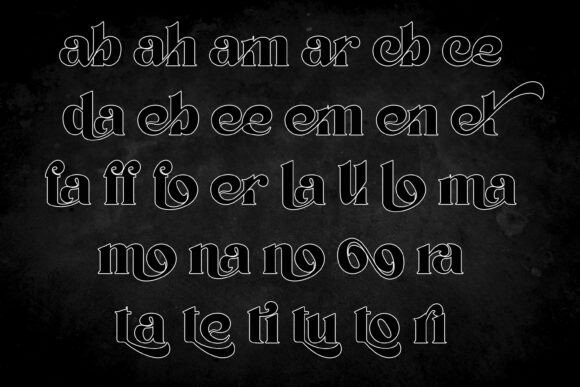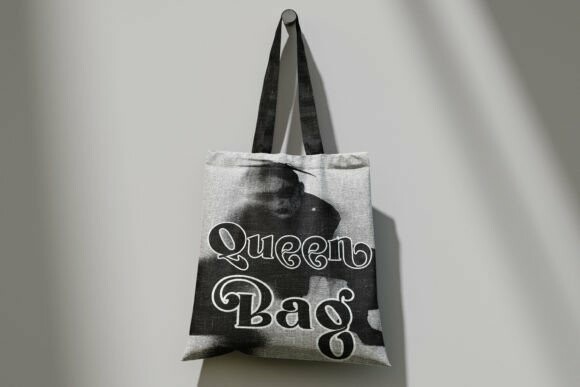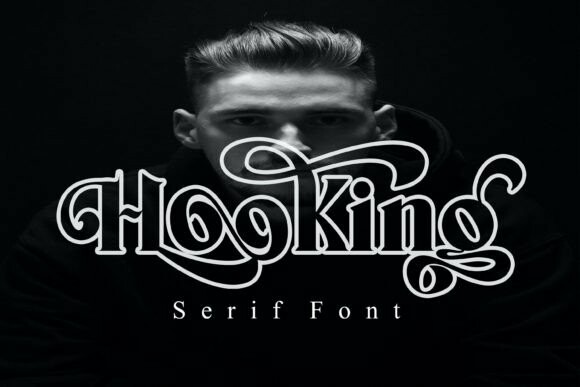
Hooking Font
Designer: Canden Meutuah
Hooking Font is an elegant and bold serif font. Fall in love with its incredibly versatile style and use it to create gorgeous wedding invitations, beautiful stationary art, eye-catching social media posts, and much more!